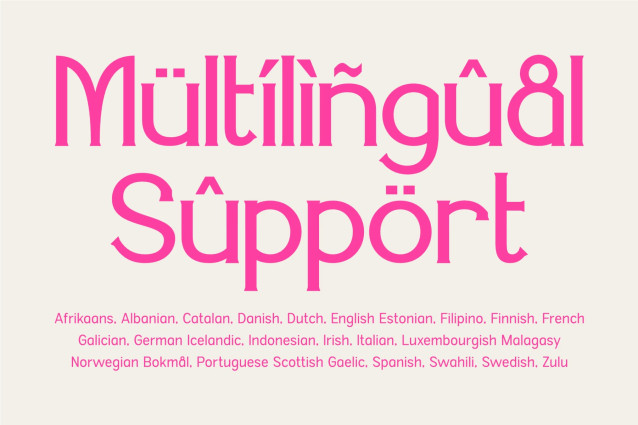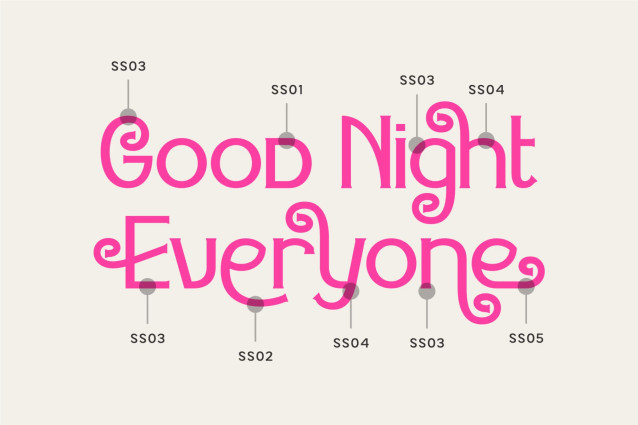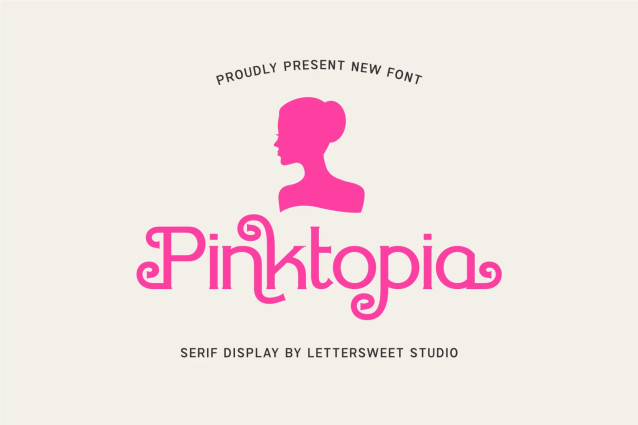
Pinktopia Demo Font
Pinktopia is a stylish display serif font that blends elegant curves with playful vintage charm. Designed to make every headline stand out, this font is perfect for feminine branding, fashion logos, beauty products, boutique packaging, wedding invitations, social media graphics, magazine titles, and premium editorial designs.
Its unique swashes and decorative details add personality while maintaining excellent readability, making Pinktopia an ideal choice for designers who want to create eye-catching and memorable projects.